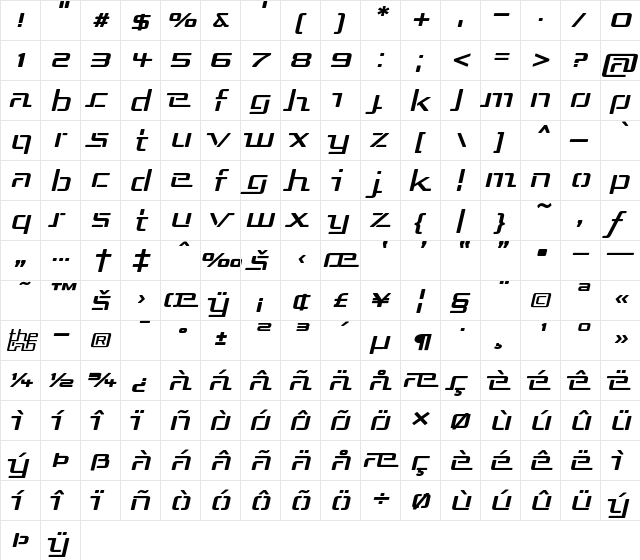
Republika III Exp Italic
Design Context for Republika III Exp Typeface
Republika III Exp is a composed and adaptable typeface that performs quietly and consistently across a wide range of design contexts. Its italic angle brings a sense of urgency and motion to the letterforms.
Pro Tip: Try Republika III Exp for annotation and caption copy alongside an upright companion — the contrast in angle creates a dynamic but ordered typographic system.